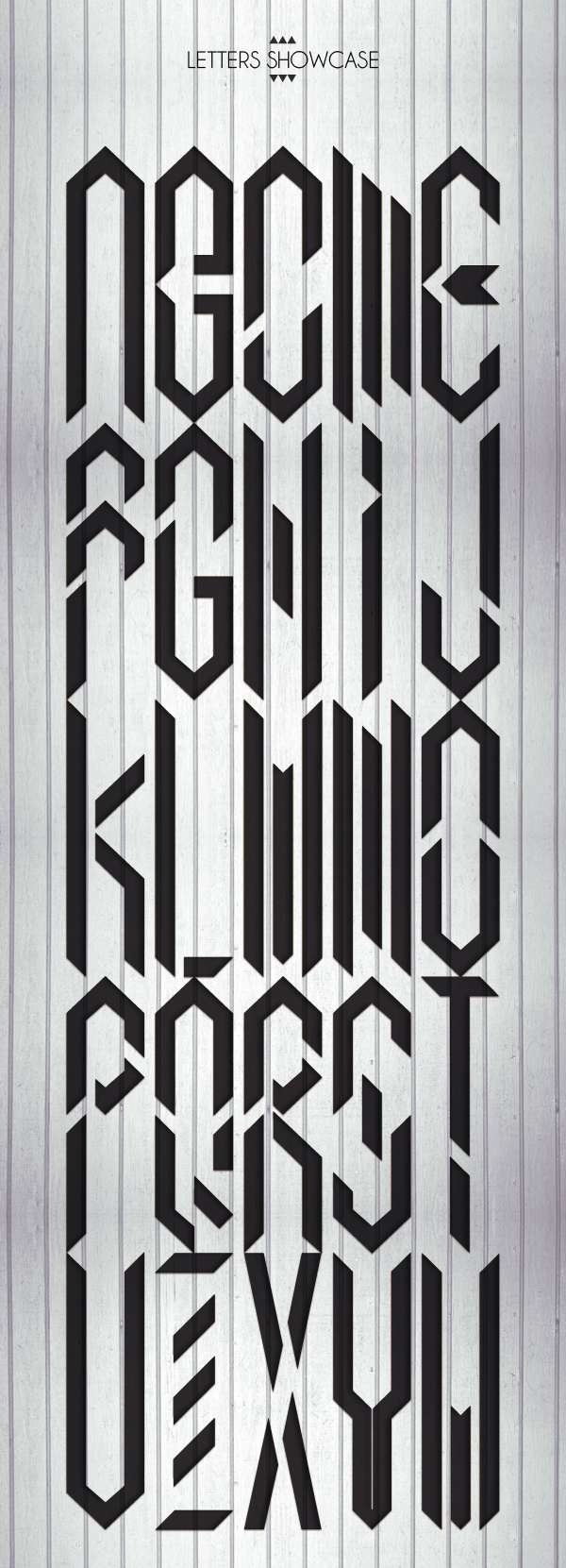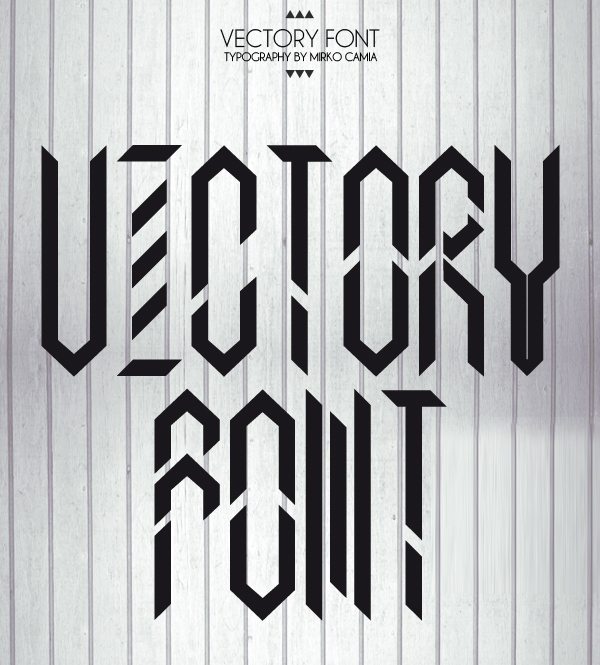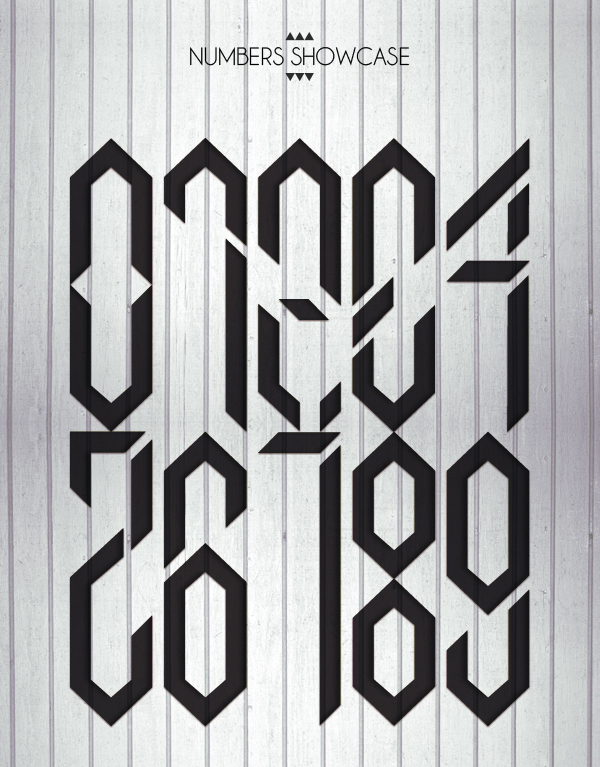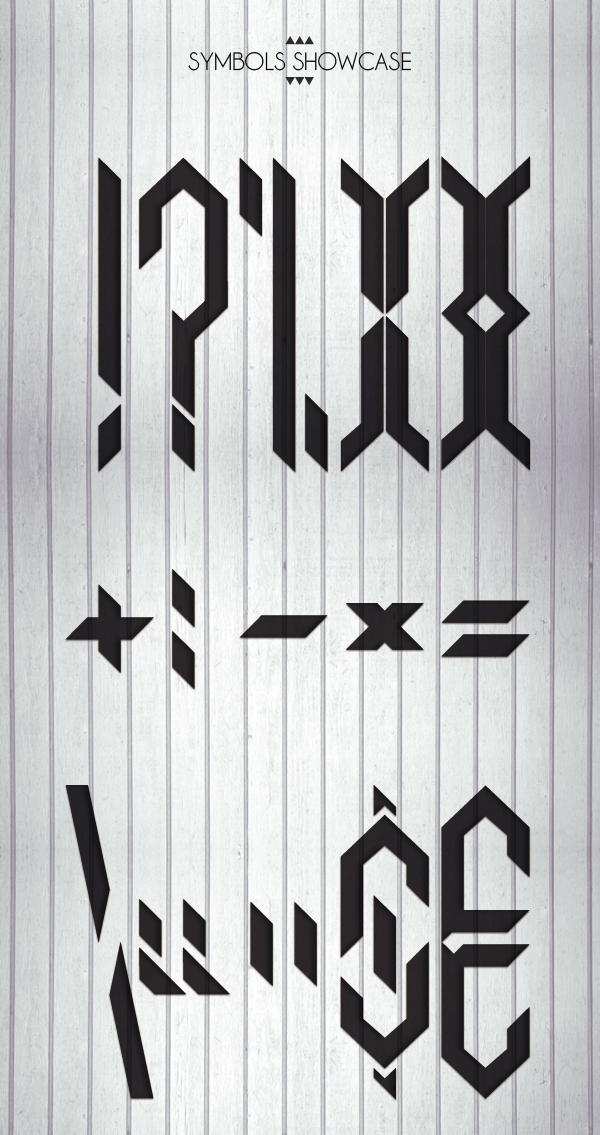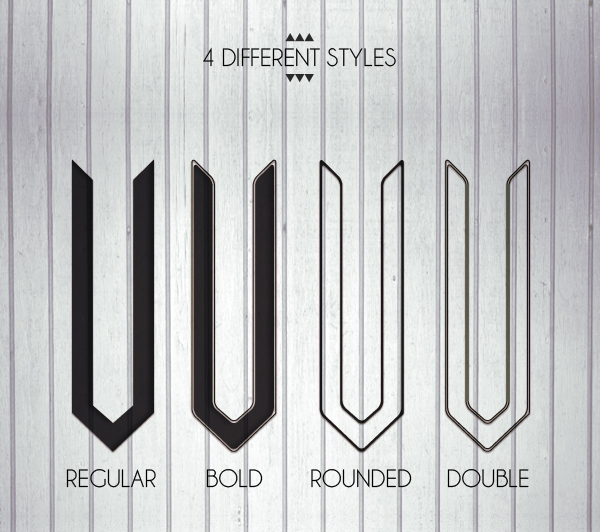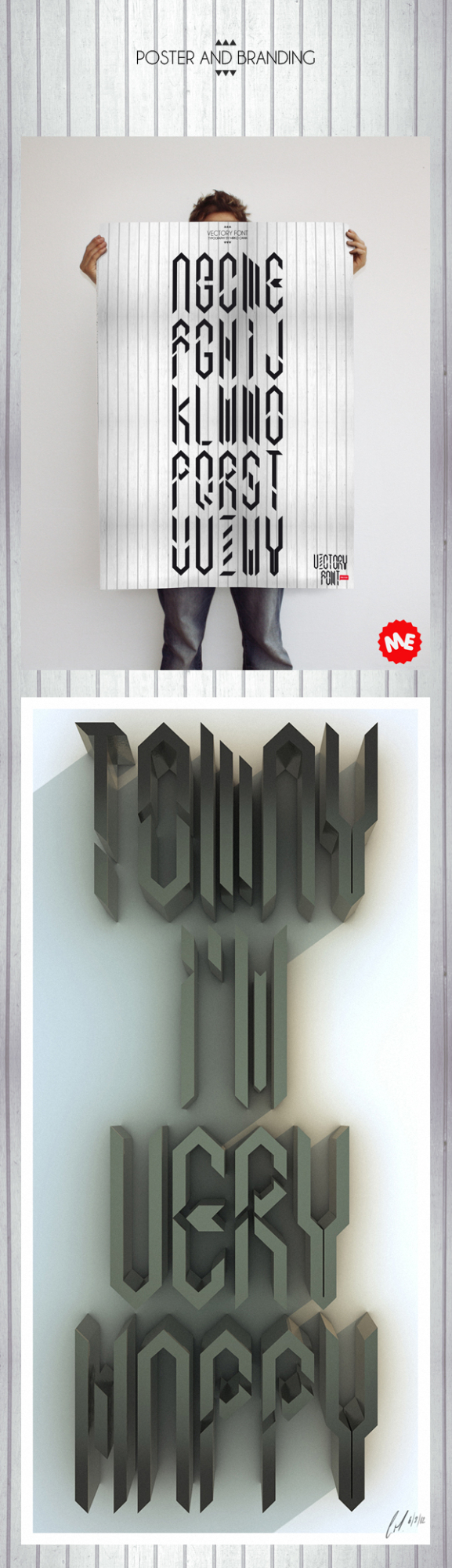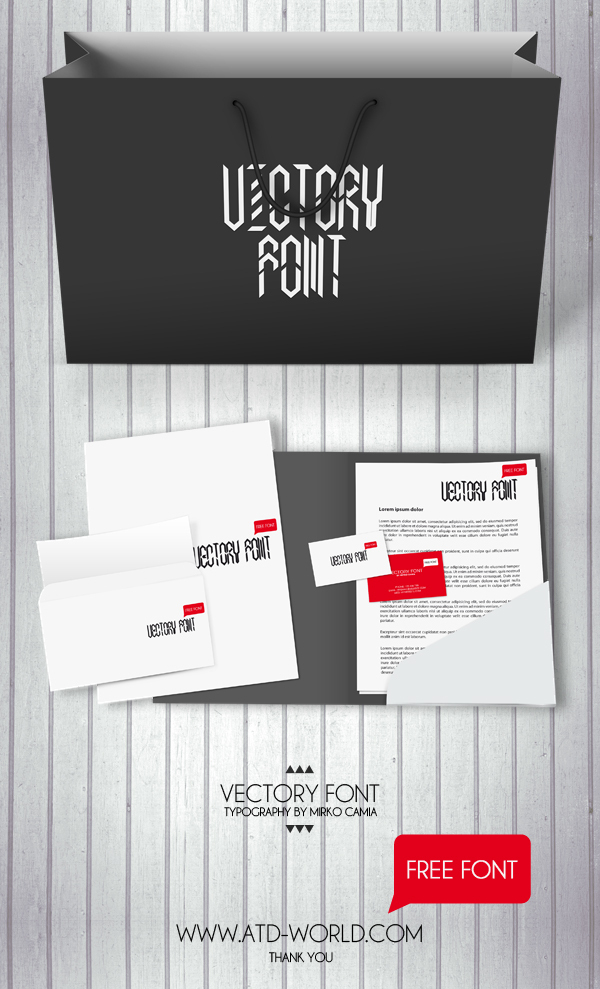
Vectory
Vectory Font born from an idea to create a dynamic typeface for your advertising!!!
included Regular, Bold, Double and Rounded style!!!
Designer: Mirko Camia
Publisher: Mirko Camia